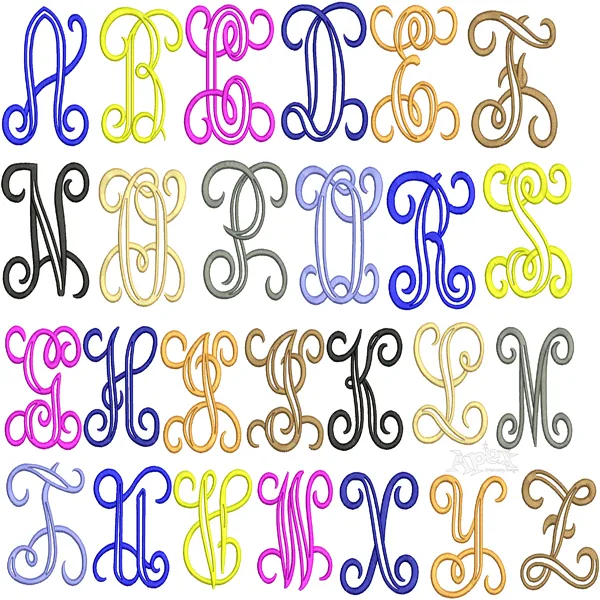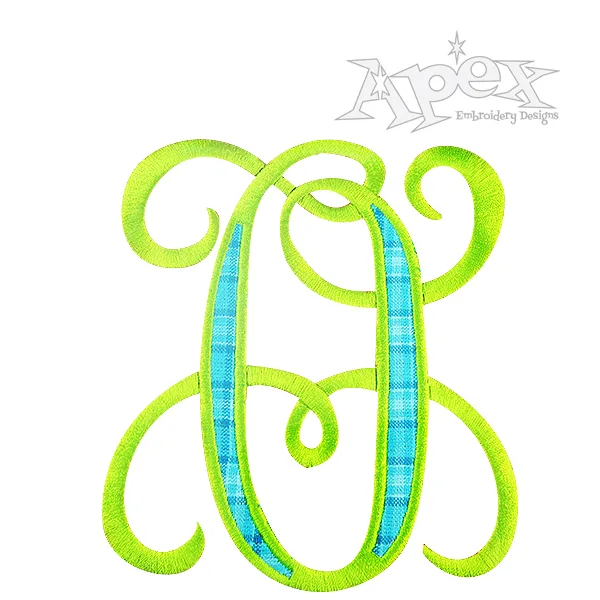
Heirloom Applique Embroidery Font
There is an enduring romance in pieces crafted to outlive generations—the gentle drape of washed European linen, the crisp texture of piqué cotton, and the unmistakable warmth of stitched fabric appliqué. When digitizing our Heirloom Applique Embroidery Font, we sought to capture the nostalgic grace of vintage estate linens and cherished nursery keepsakes. Designed with generous proportions and graceful, flowing architecture, each letter serves as an open canvas to showcase cherished textile prints—from ditsy Liberty florals and classic ginghams to crisp linen batiste—framing them within a border of lustrous, densely digitized satin stitch.
Each size contains complete uppercase letters digitized with pristine multi-step applique sequencing (placement guide, tack-down running stitch, and rich finishing satin borders) ready to load directly into your embroidery machine.
Project Ideas for Heirloom Applique Embroidery Font
- Heirloom Nursery Quilts & Keepsake Blankets: Feature a grand single-letter monogram or three-letter combination stitched onto heirloom pique or soft double-gauze muslin.
- Custom Monogrammed Throw Pillows: Accent linen or velvet accent cushions for the master suite, bridal trousseau, or guest room.
- Bespoke Resort Totes & Beach Bags: Stitch bold, coastal fabric appliques onto heavy structured canvas totes for personalized gifting and warm-weather getaways.
- Holiday Stockings & Seasonal Linens: Pair festive plaids and ticking stripes on heavy linen stockings or decorative table runners for heirloom celebrations.
- Personalized Bridal Robes & Garment Bags: Frame delicate silk or floral cotton appliques onto bridal party loungewear for an artisan touch.
- Center Stage on Quilt Blocks: Center the 5-inch or 6-inch letter precisely within framed quilt squares or centered on crib duvets to establish an unmistakable visual anchor.
- Master Bedding Accents: Position centrally on euro shams or bolster cushions, ensuring the generous curves and open centers balance the expanse of fabric.
- Corner Diagonals: Angle the 4-inch motif along the bottom right corner of oversized throws or table toppers for an asymmetrical, bespoke monogramming aesthetic.
- Center Front Totes: Position slightly above the vertical midpoint on market bags and totes so the natural drape does not obscure the satin border.
Heirloom Applique Embroidery Font Craft & Letterform Details
Appliqué at this scale demands uncompromising structural balance. Rather than merely applying a uniform border to standard letterforms, we drafted this font specifically for the appliqué medium. Generous open interior counters invite patterned textiles to shine, while the soft, calligraphic serifs soften each silhouette with quintessential Southern charm.
Behind the visible beauty lies meticulous digitization. The initial placement lines run with featherlight tension to avoid distorting delicate fabrics, followed by a secure tack-down sequence designed to prevent raw edge fraying before the final trim. Our signature satin stitch wrap is calibrated with gentle corner underlays and optimized pull compensation, delivering smooth, rounded corners and an impenetrable edge that encases raw fabric margins cleanly on home and multi-needle embroidery machines alike.